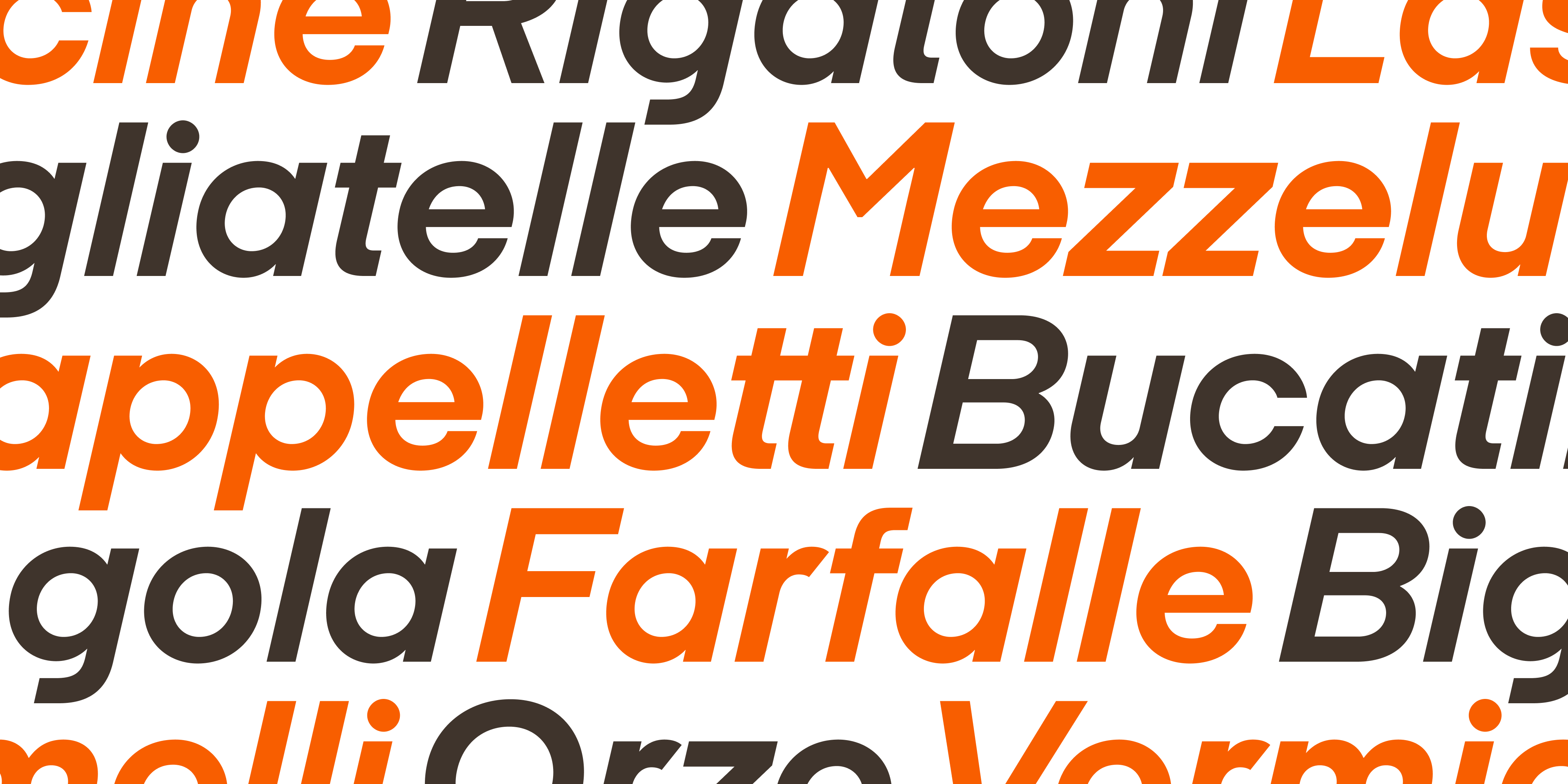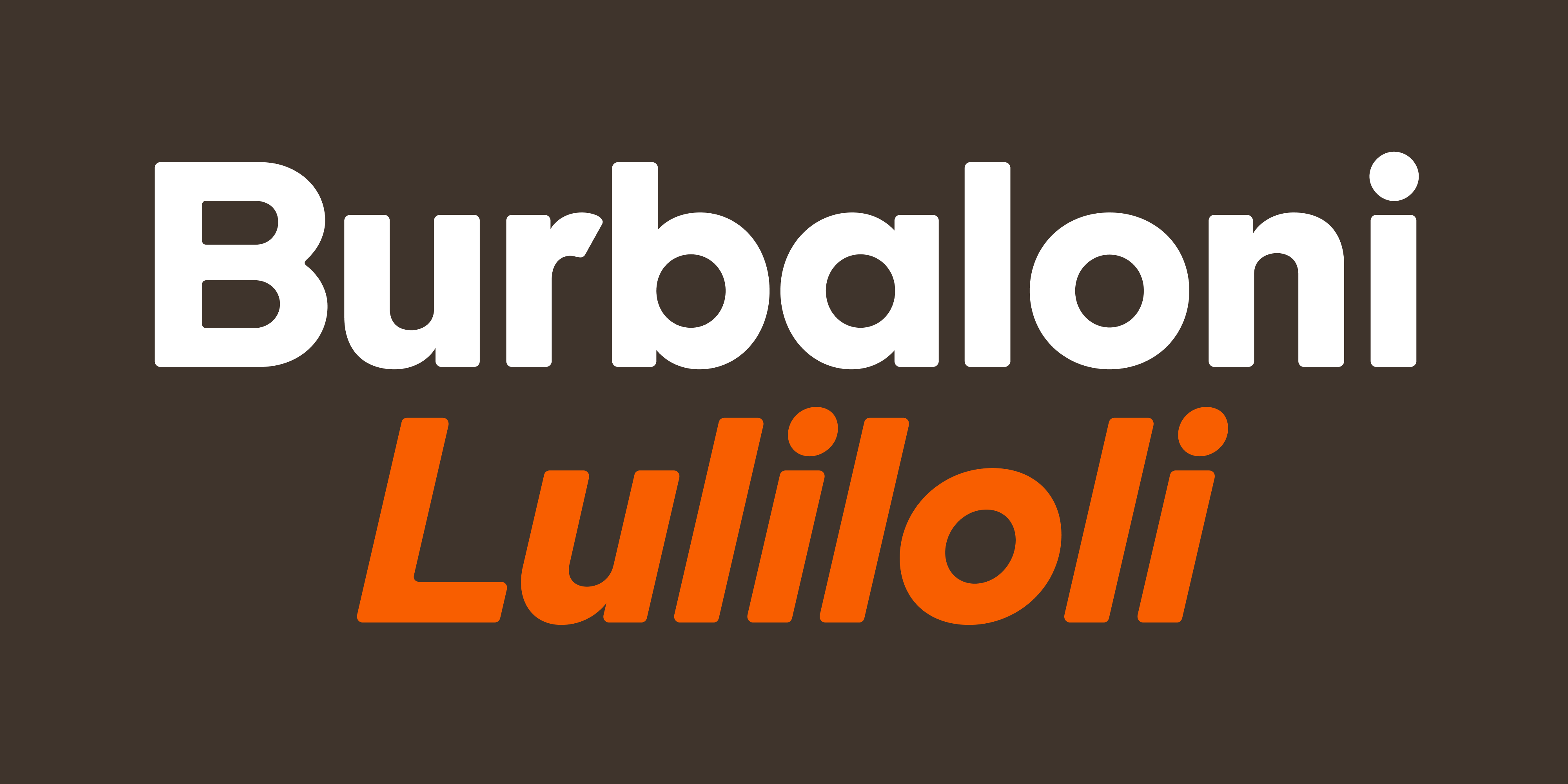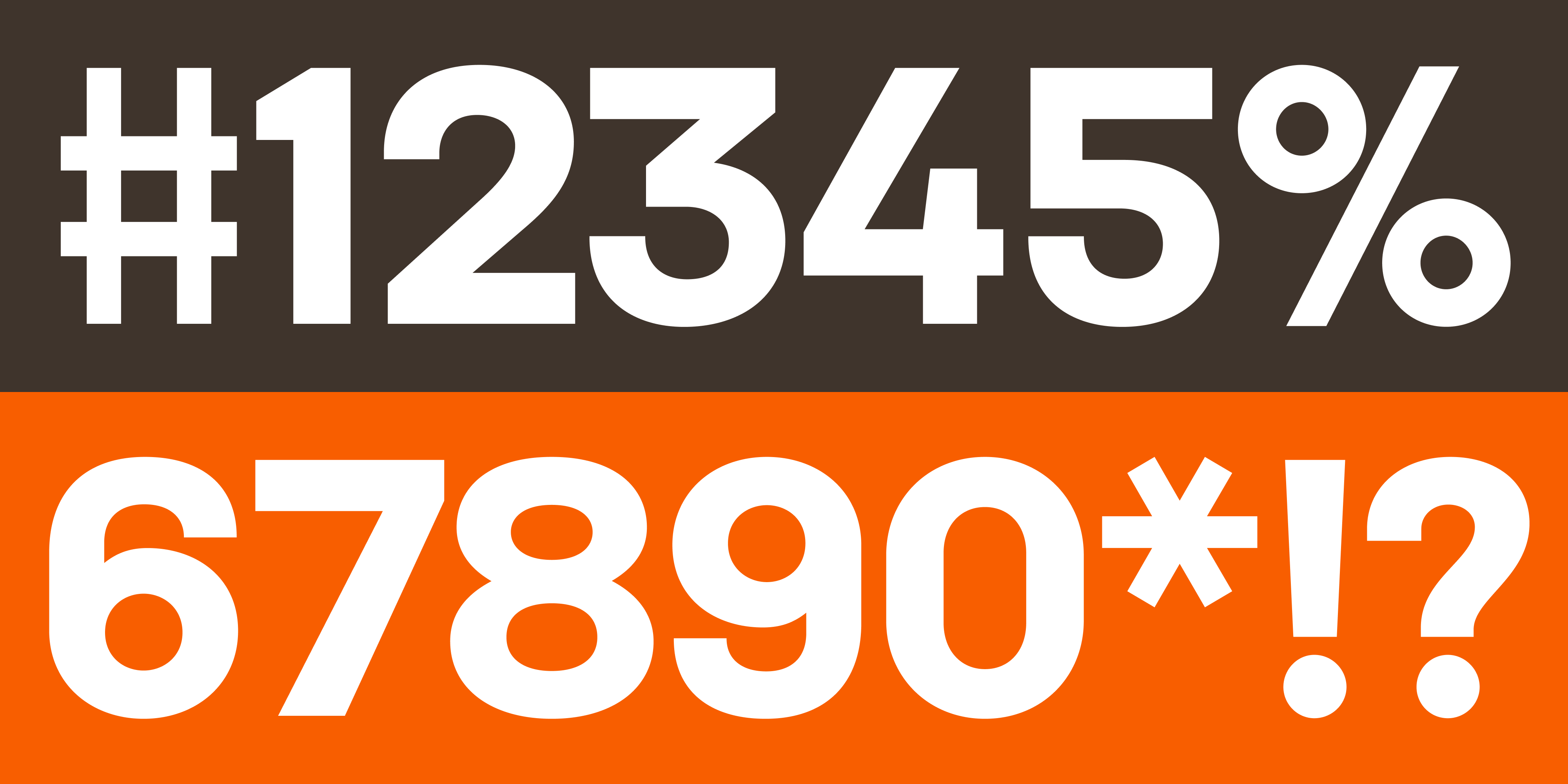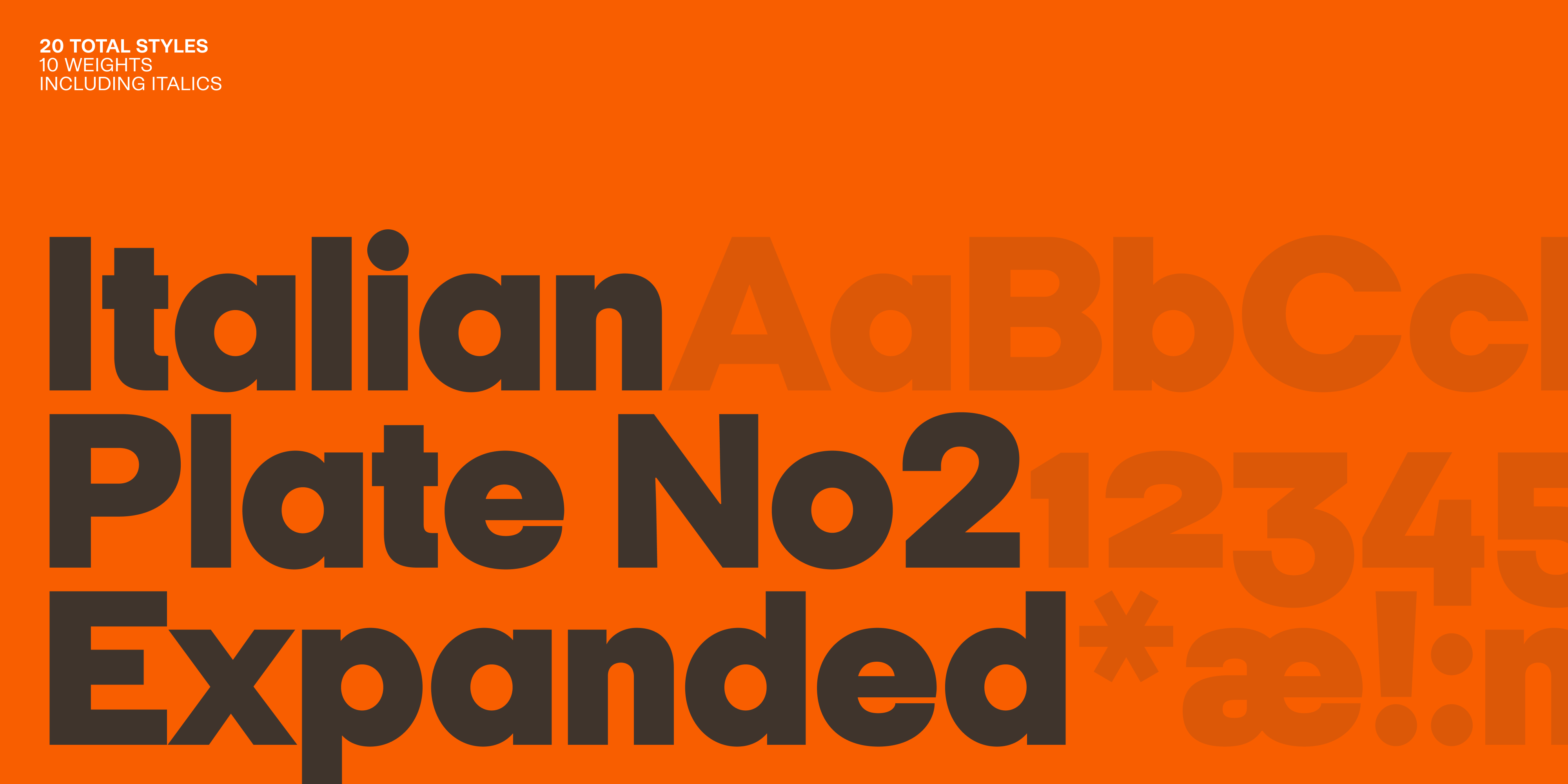
No2 Expanded is an airy and full-bodied typeface. The original look is maintained, but has acquired edge through the sharpening of its endings, whilst the legibility is increased through the widening of the letters and the adding of more space. The open spaces and round shapes on letters such as a, c, h, o and q widen the type enormously, giving it a generous texture with a nice legibility.